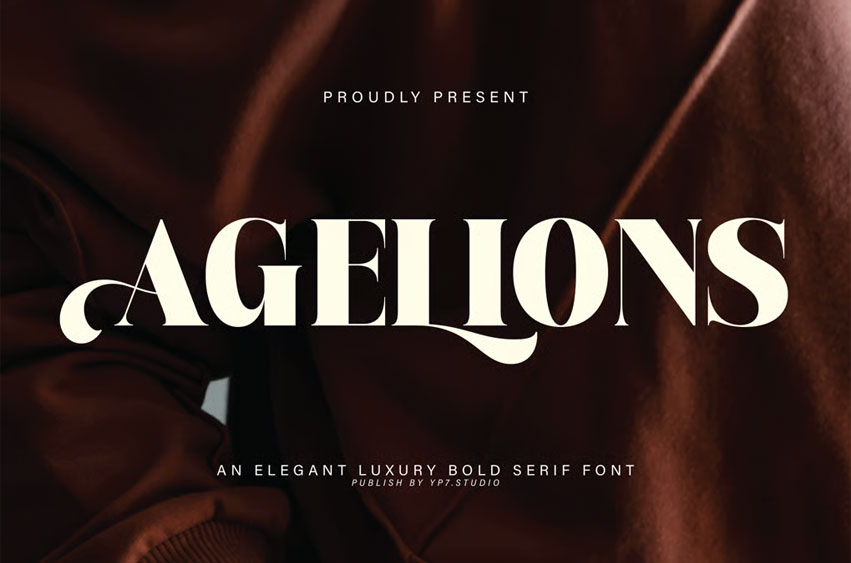
Agelions Font
Agelions Font Elegant Luxury Bold Serif Font – Agelions. It fits in headlines, logos, posters, flyers, invitations, name cards, branding materials, print media, editorial layouts, and many more.